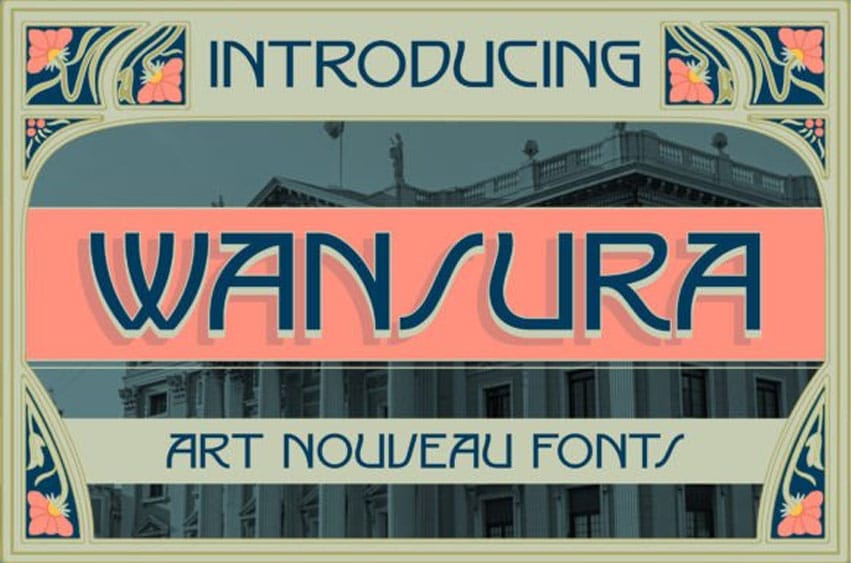
Wansura Font is an Art Nouveau-based display font.
It was inspired by the typical signs, decorative visuals, architecture, and art of that period and is perfect for a logo, branding, signage, decor, books, cover, badges and emblems, clothing, apparel, merchandise, movie title, serials, and many more.